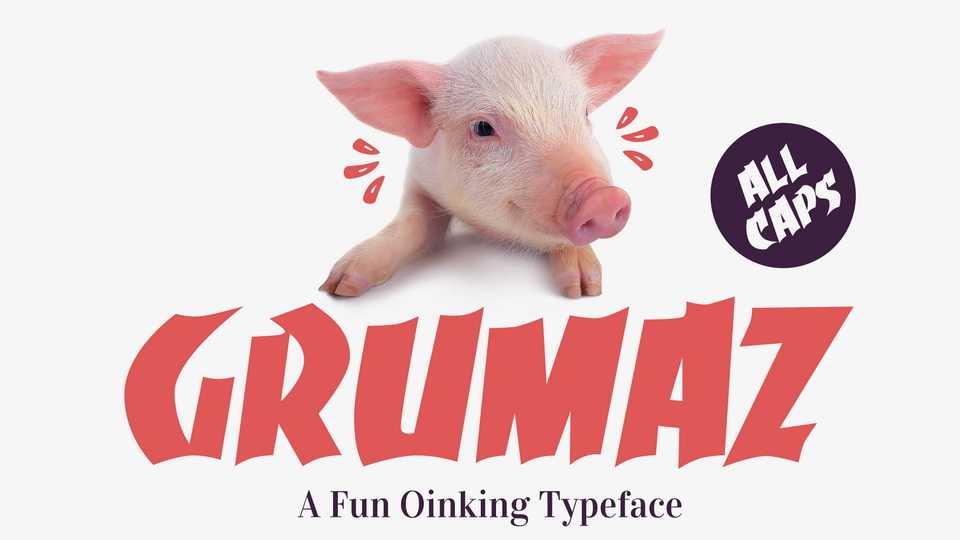
Download Grumaz font, a bold and funny display typeface with a twist. It’s a massive all-caps, positively bold yet quite good-humored, suitable for all of your fun projects.
Designer: Lovepower Designs